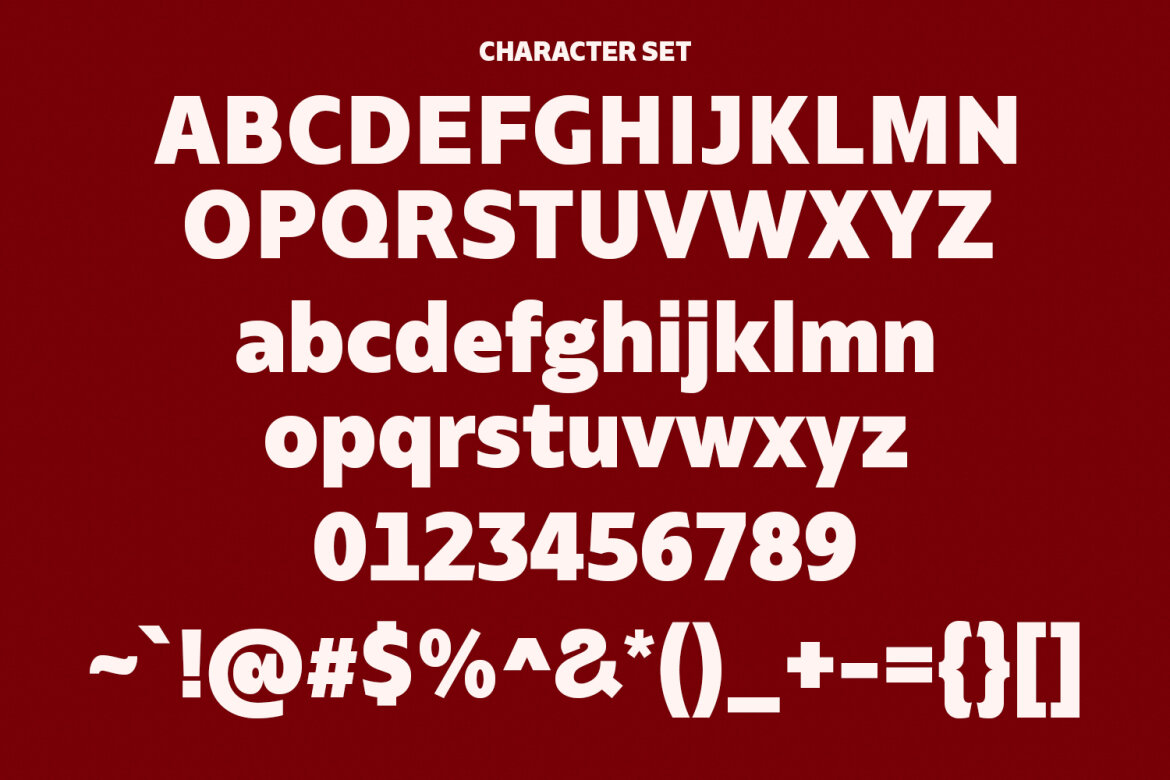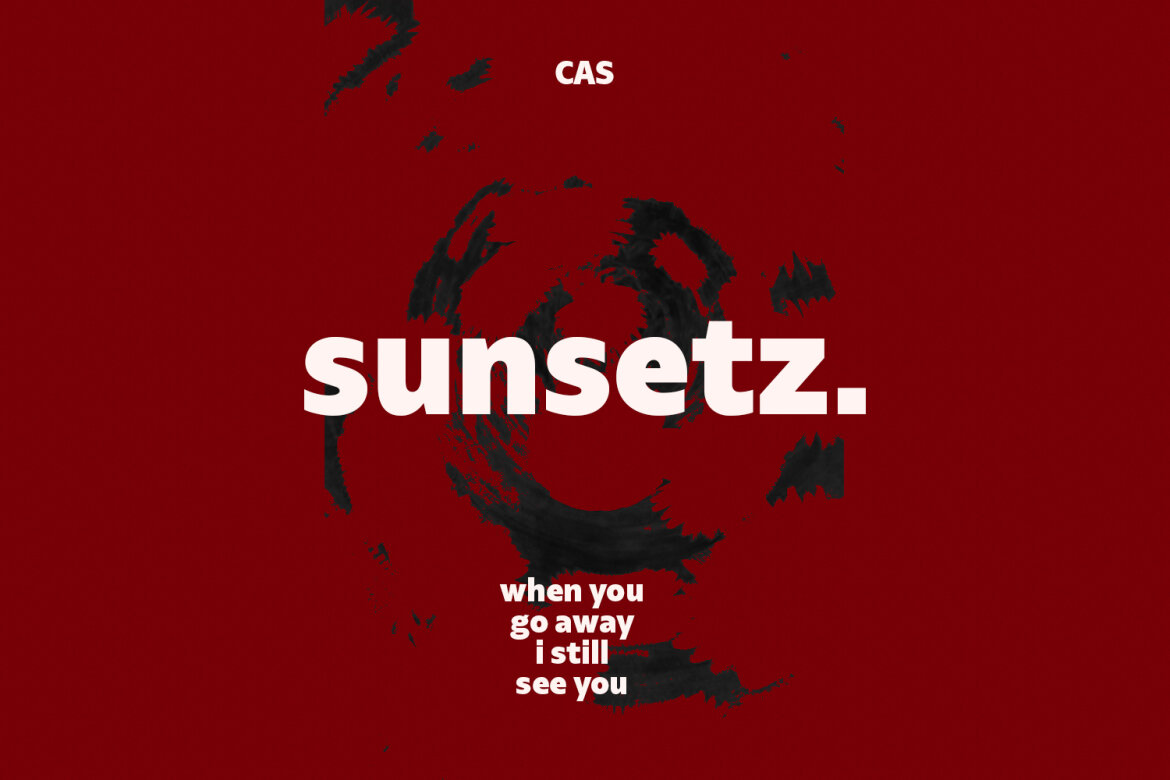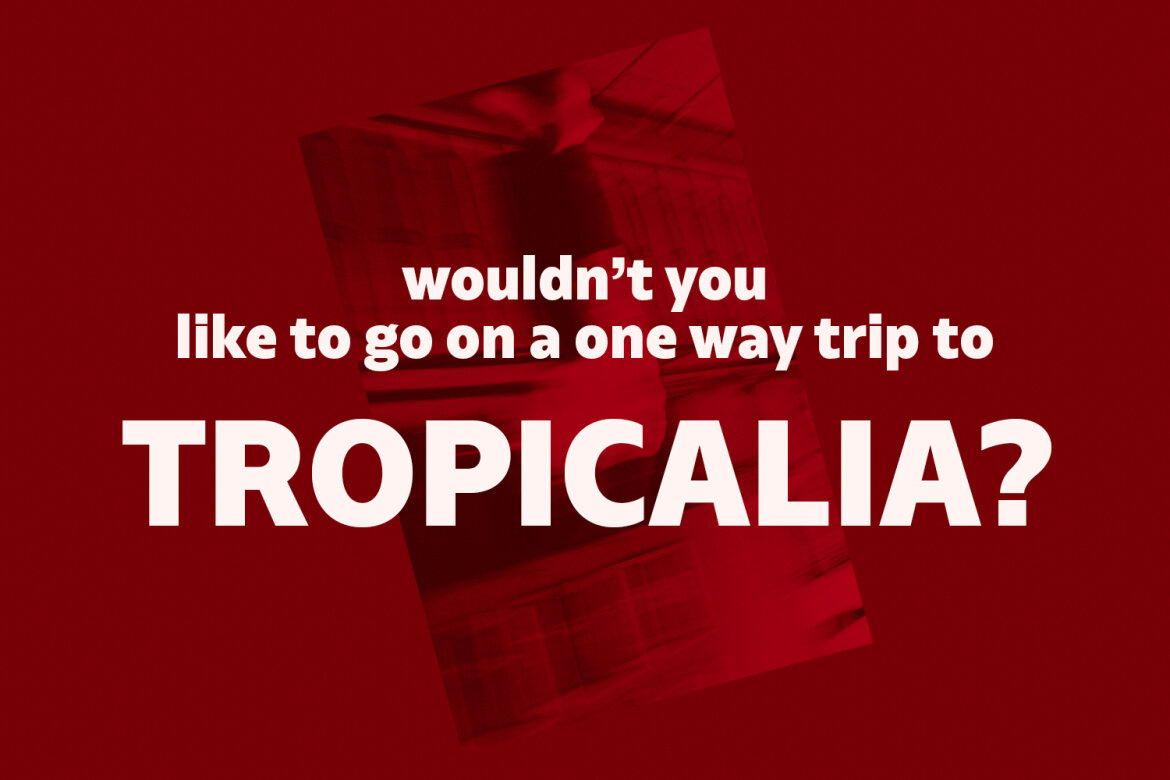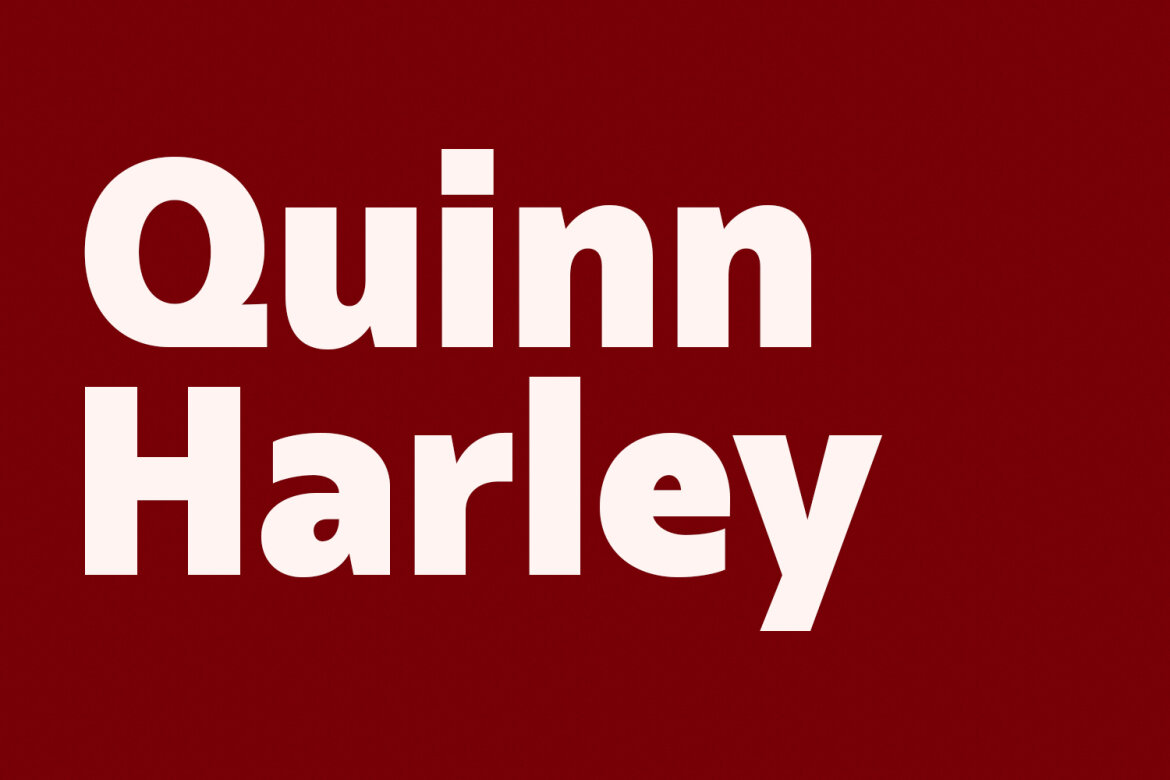
Norges Sans Serif FREE Font
Norges Sans
Norges is a contemporary sans display font. With bold stroke, fun character with a bit of ligatures and alternates. To give you an extra creative work. Norges font support multilingual more than 100+ language. This font is good for logo design, Social media, Movie Titles, Books Titles, a short text even a long text letter and good for your secondary text font with Script. Make a stunning work with Norges font.